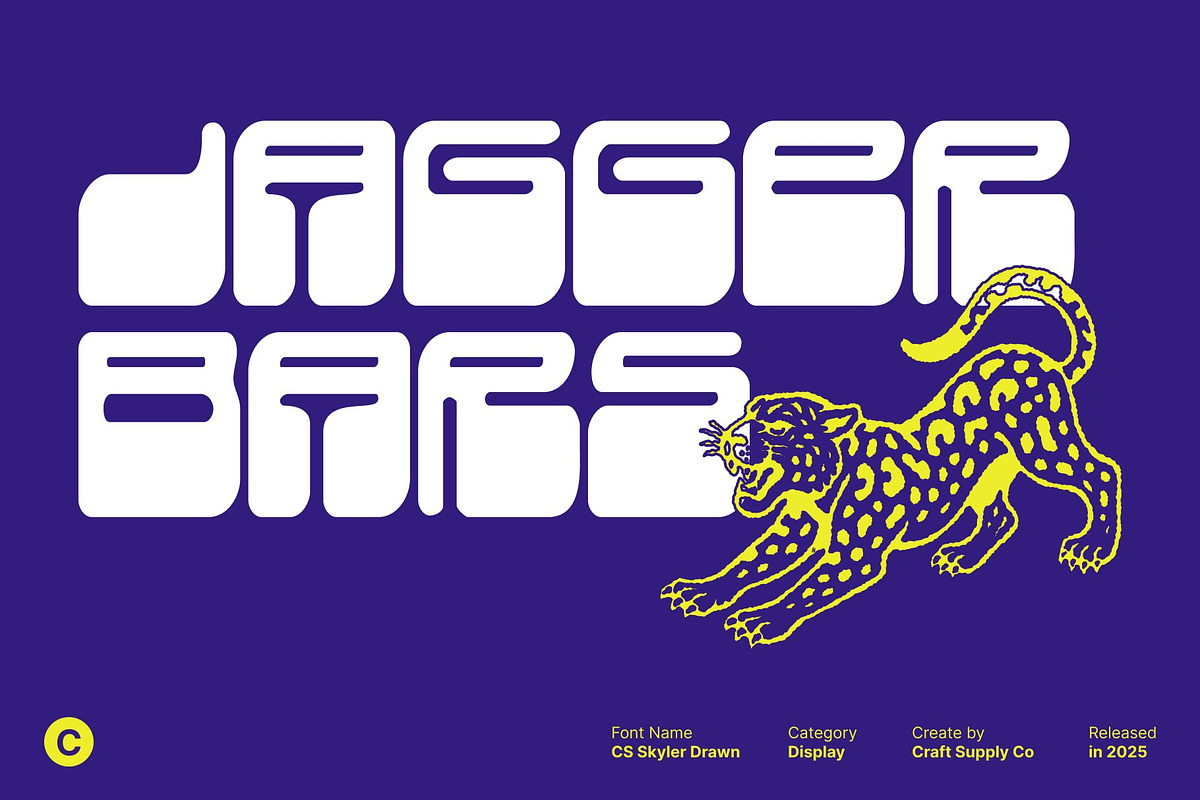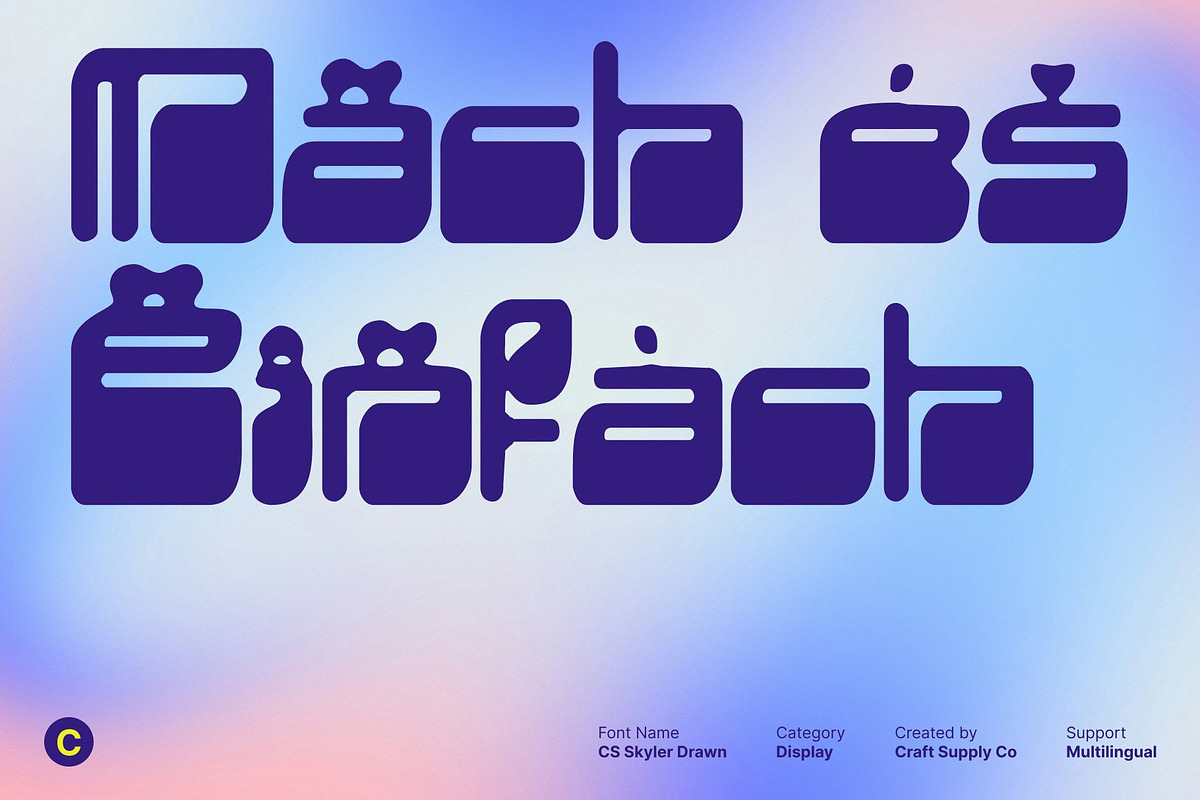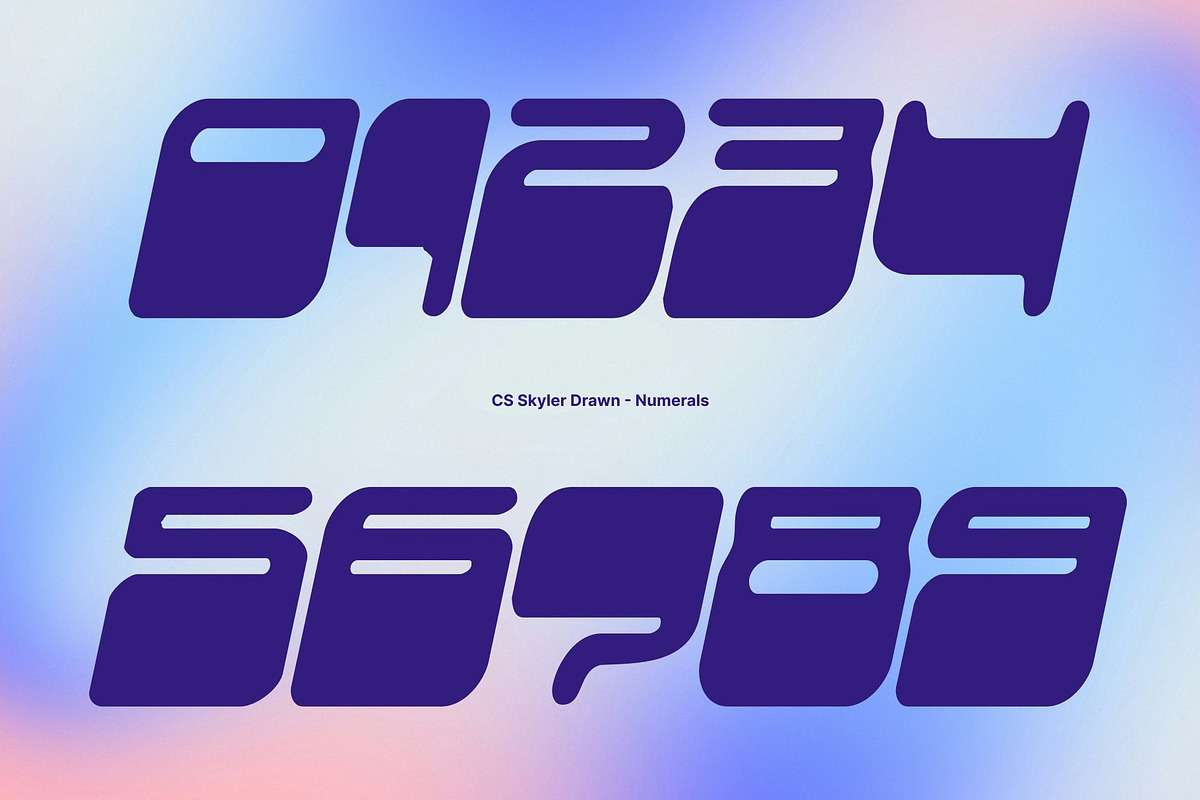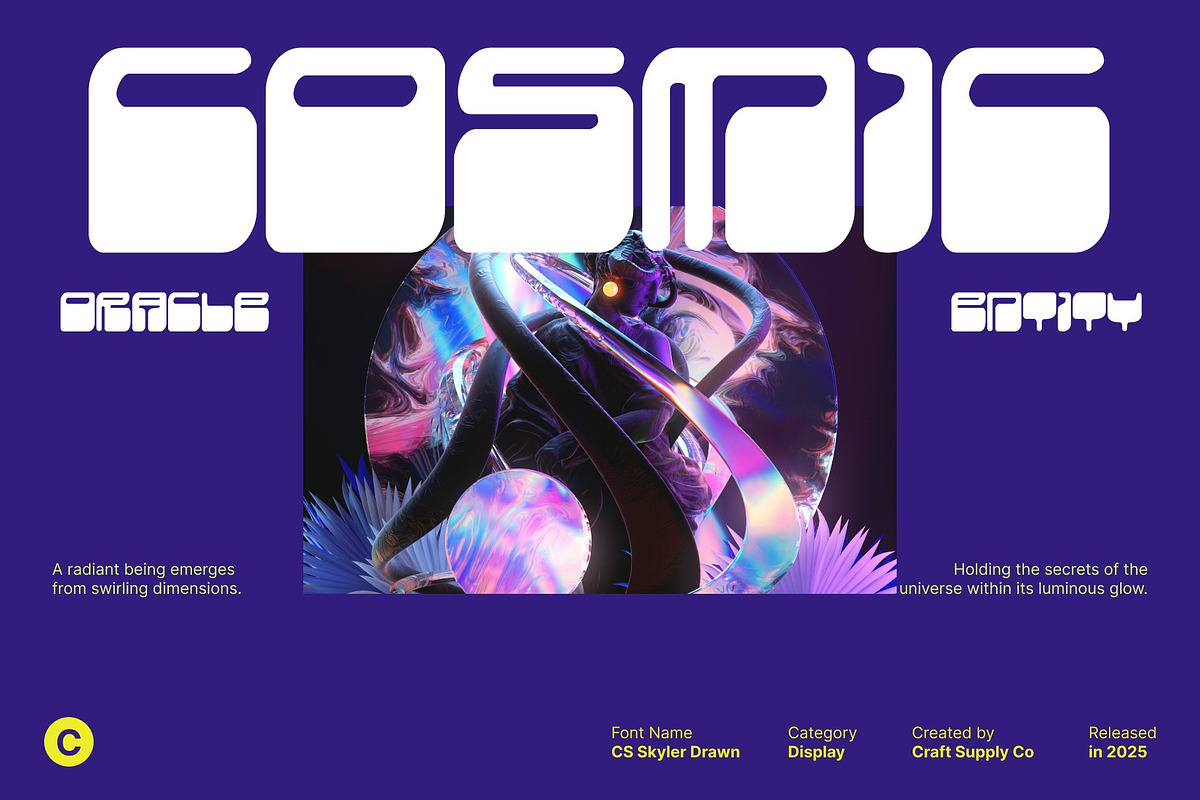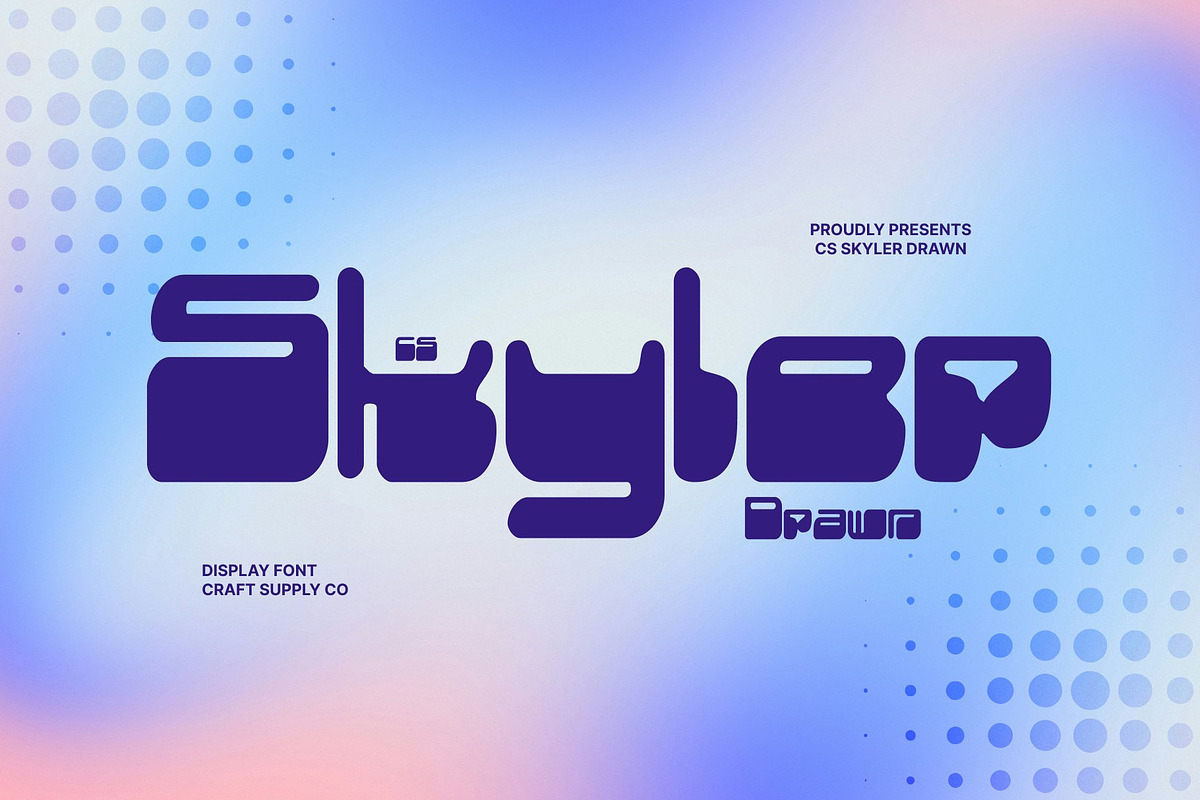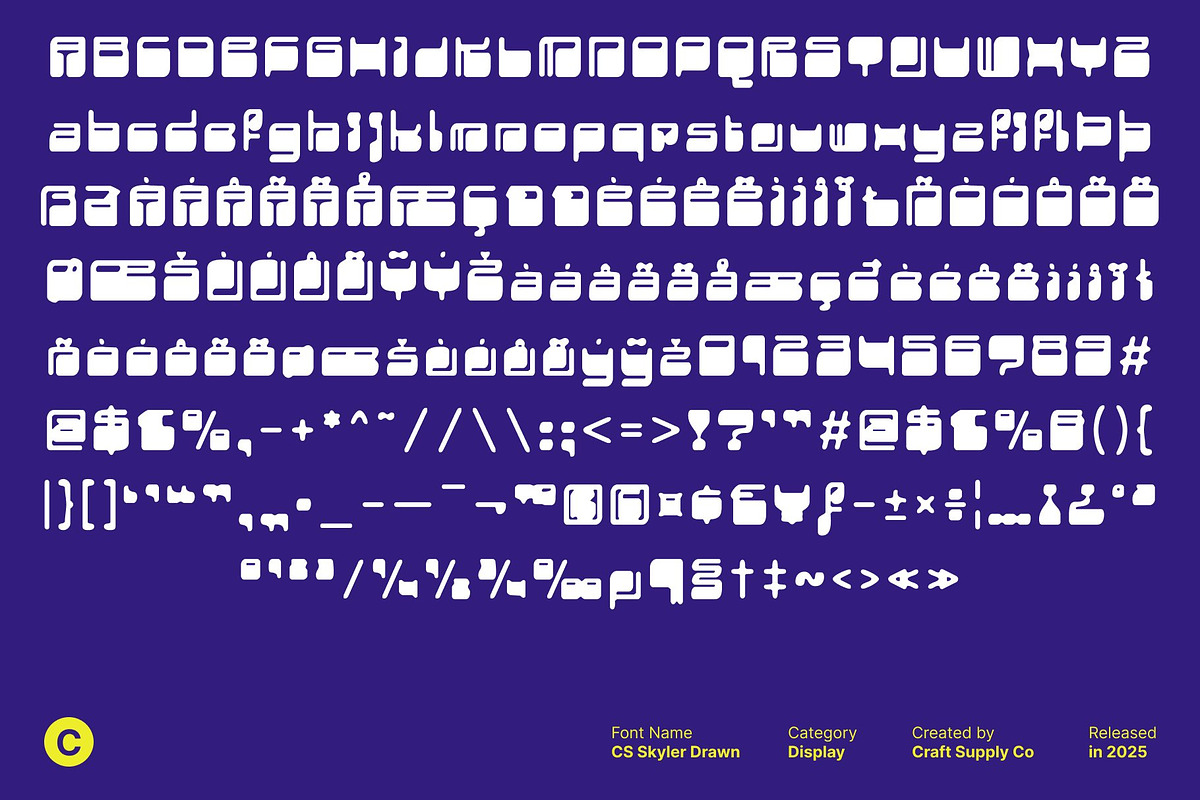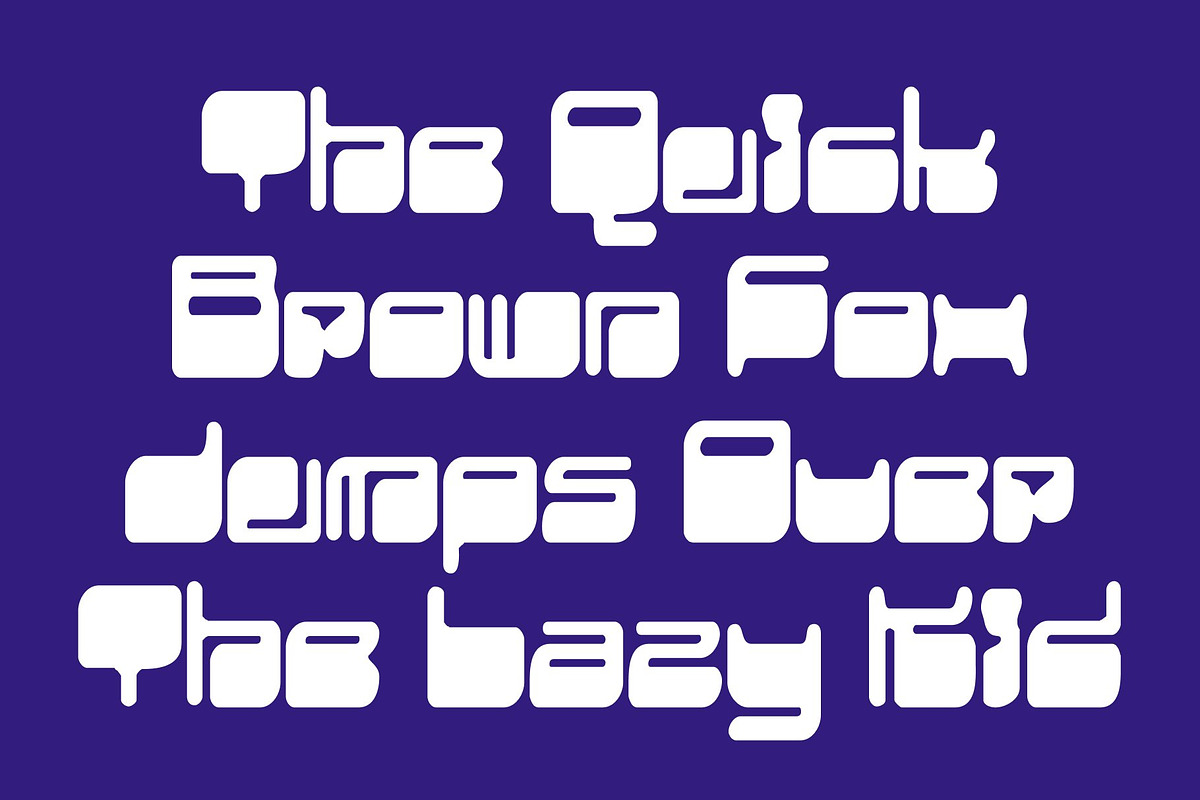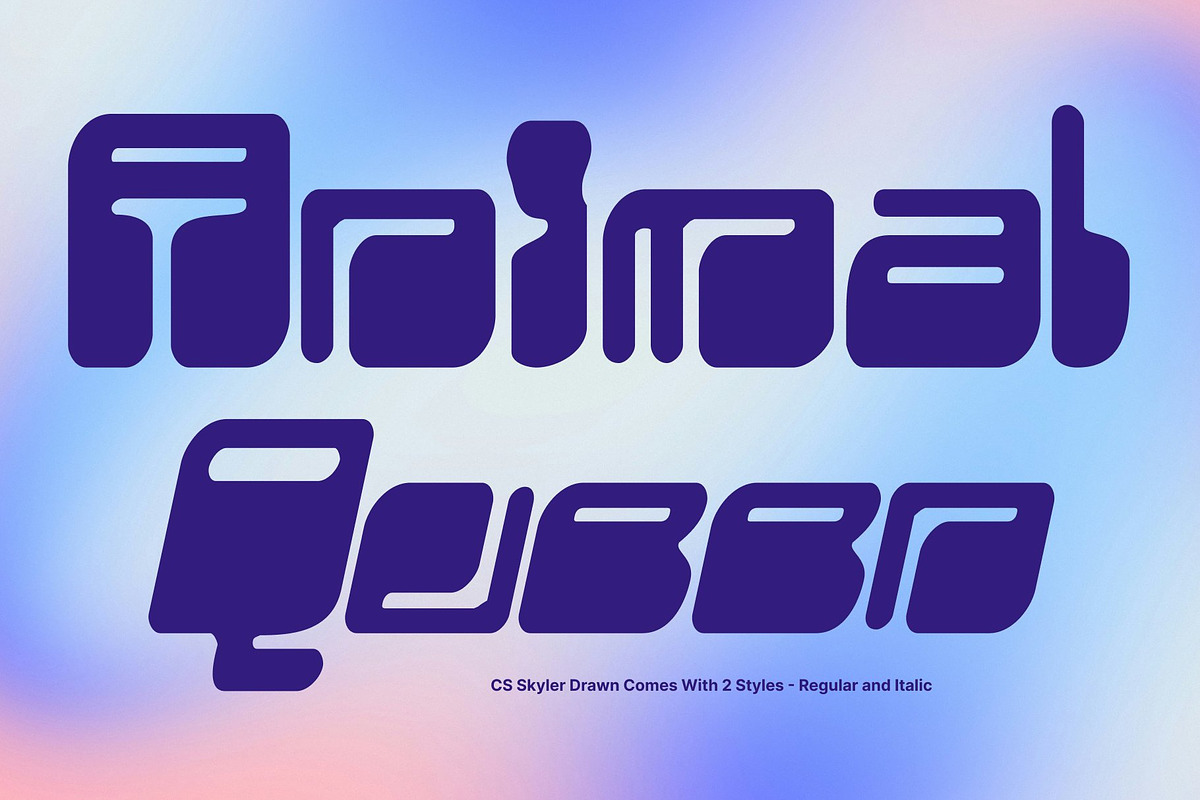
CS Skyler Drawn
CS Skyler Drawn – Reverse Contrast Font: Bold Playfulness with Retro Flair
Reverse Contrast Display Sans Serif with Hand-Drawn Texture This is a bold display sans serif font defined by its distinctive reverse contrast construction thick horizontal strokes paired with slimmer verticals. This unconventional structure creates a dynamic visual rhythm that feels expressive and instantly eye-catching. The added drawn effect introduces a natural, handcrafted texture, giving each character a unique and organic personality.
Y2K Energy with Retro Funky Attitude Inspired by the vibrant digital culture of the early 2000s, this font blends Y2K aesthetics with retro-funky charm. Its rounded shapes, playful proportions, and exaggerated forms channel a nostalgic yet energetic vibe, making the font feel fun, bold, and full of character perfect for designs that celebrate creativity and individuality.
Playful Boldness for Standout Creative Work With its strong personality and unconventional contrast, this font excels in music posters, album artwork, creative branding, and expressive digital visuals. The bold structure ensures high impact, while the drawn texture softens the look, adding warmth and authenticity to playful, youth-driven projects.
Unique Impact for Modern Retro Designs This font offers a fresh reinterpretation of reverse-contrast typography, combining vintage inspiration with contemporary usability. Ideal for fashion campaigns, event promotions, and digital media, this font empowers designers to push boundaries and create memorable visuals with a bold, retro-modern edge and naturally unique character.